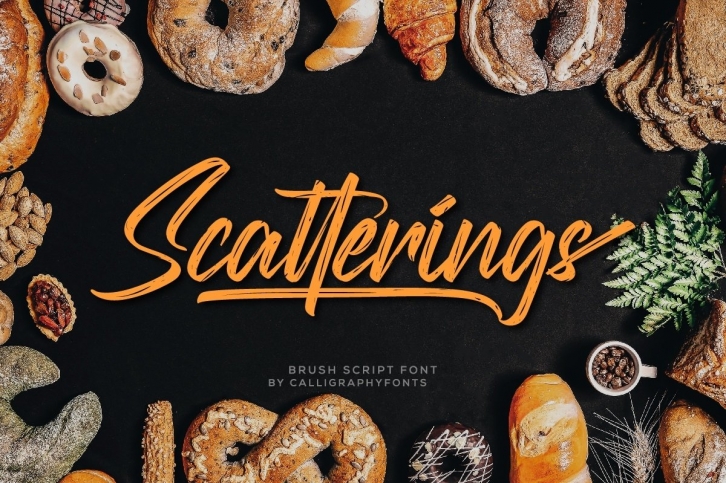
Scatterings is a great font that was designed by Calligraphy Fonts. Imagine the amount of combinations you can create using this font! The archive is 20.70 MB and it was released on June 18, 2021. Scatterings looks beautiful on wedding invitations, greeting cards, logos, posters, labels, t-shirt designs, logos, business cards and is perfect for use in ink or watercolor works, fashion, magazines, packaging and food menus, children's books and more!